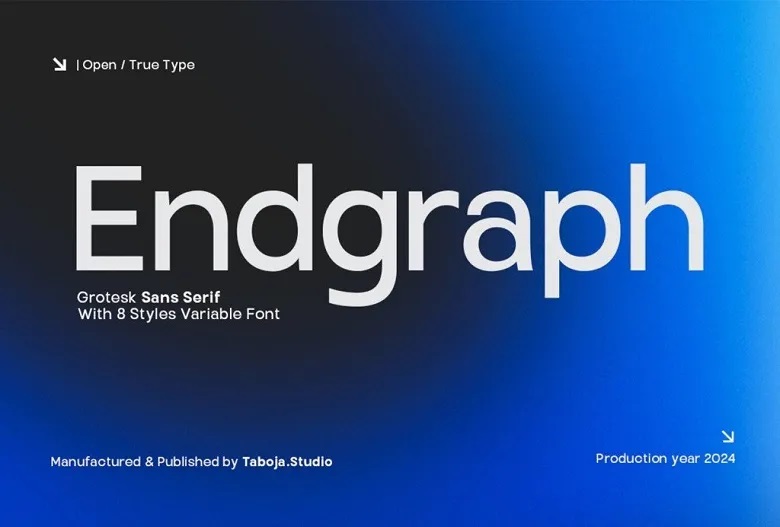
TBJ Endgraph Font Family
TBJ Endgraph is a modern sans serif font family that unites geometric approach with the warmth of grotesk style. Having 8 different weights from Thin to Extra Bold, TBJ Endgraph will look appropriate in any project ranging from logos, web-sites, and printed materials. Due to its rather simple design and symmetrical shapes, it is a rather timeless option for designers who value aesthetics as well as clear legibility.
All the weights of TBJ Endgraph are smooth to use in any designs you are working on, thus providing a professional appearance to all your projects. For headings as well as the regular text, this font family is diverse yet sophisticated enough for any project. TBJ Endgraph is the perfect font family for your modern projects – versatile and stylish, it won’t let you down.
TBJ Endgraph Sans Serif Font Family